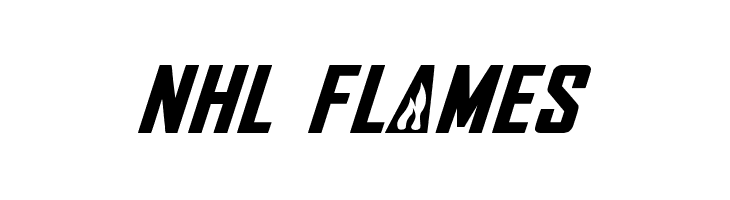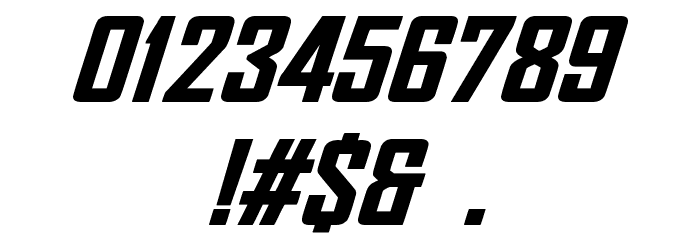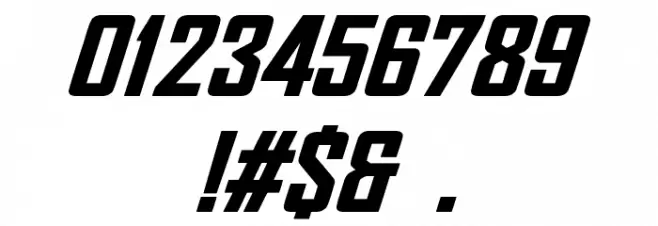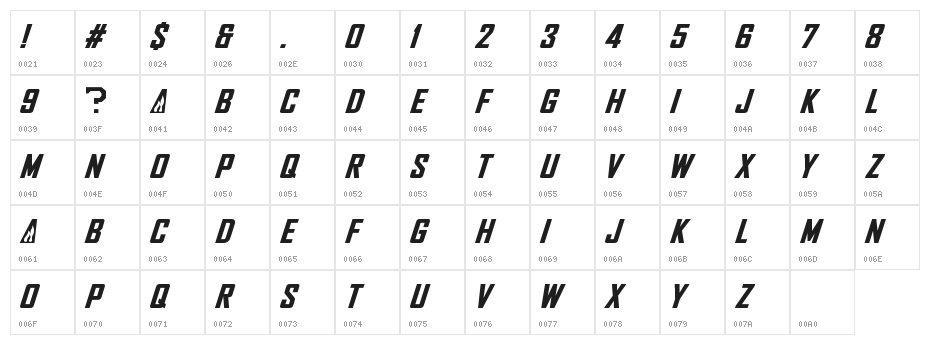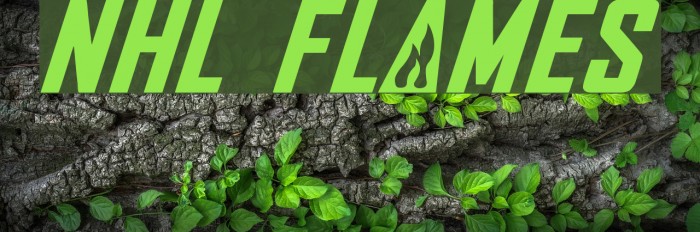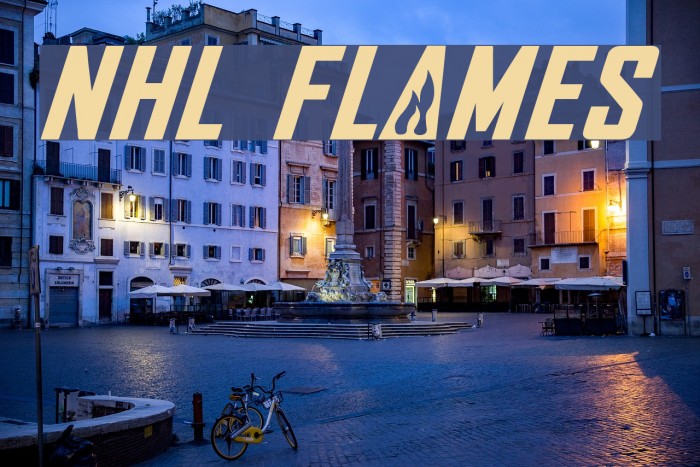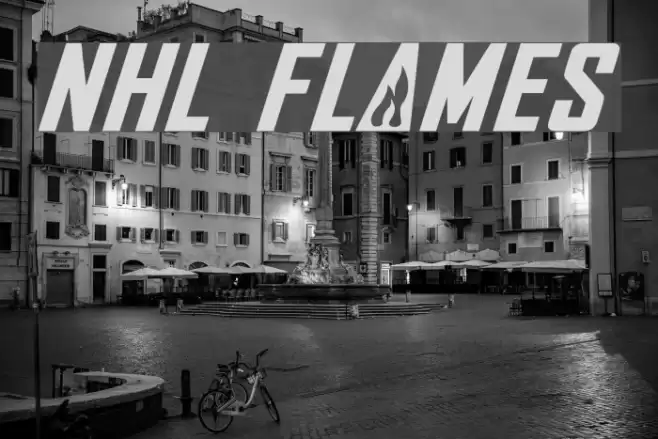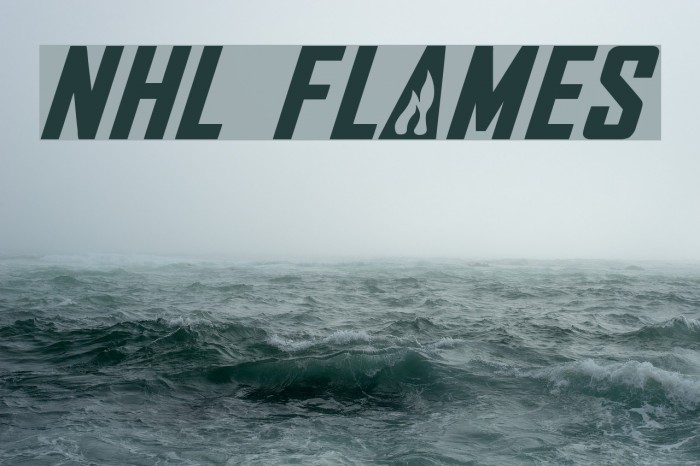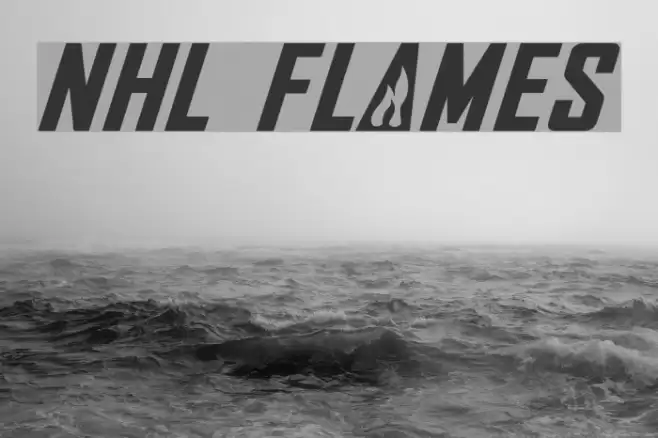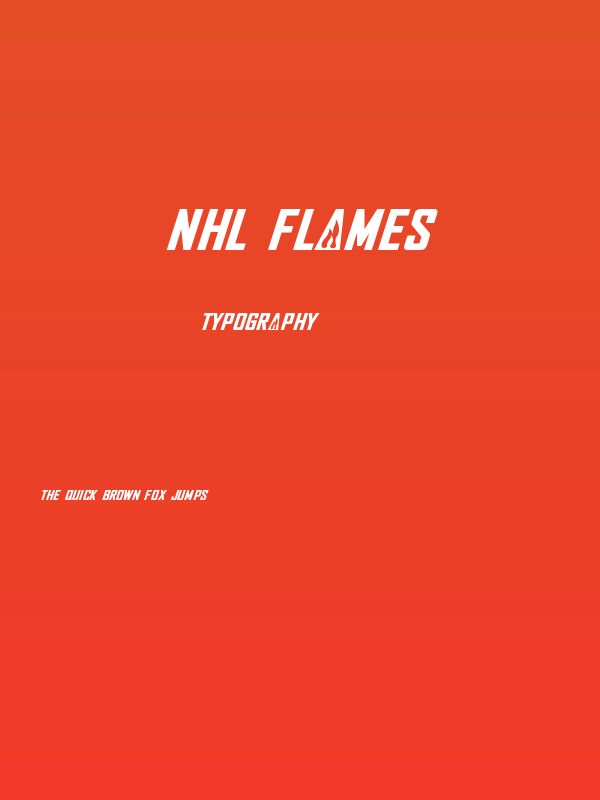
NHL Flames Font
NHL Flames Description
This font features a bold, italicized style with a strong, dynamic presence. The characters are slightly condensed, giving it a compact and powerful look. The uppercase letters are sharp and angular, with a consistent slant that adds to the sense of movement and energy. The numerals and special characters maintain this bold, italicized style, ensuring uniformity across all glyphs. The font's design is modern and sleek, making it suitable for projects that require a strong visual impact.
| Proposed Projects | Ideal for sports branding, dynamic logos, and headlines that require a strong, energetic presence. |